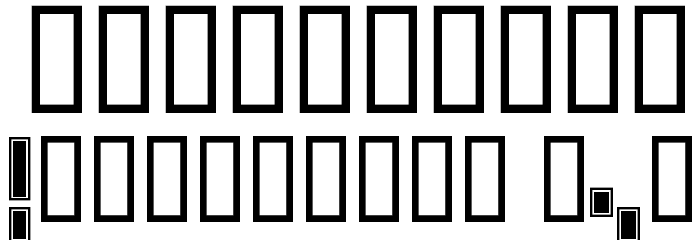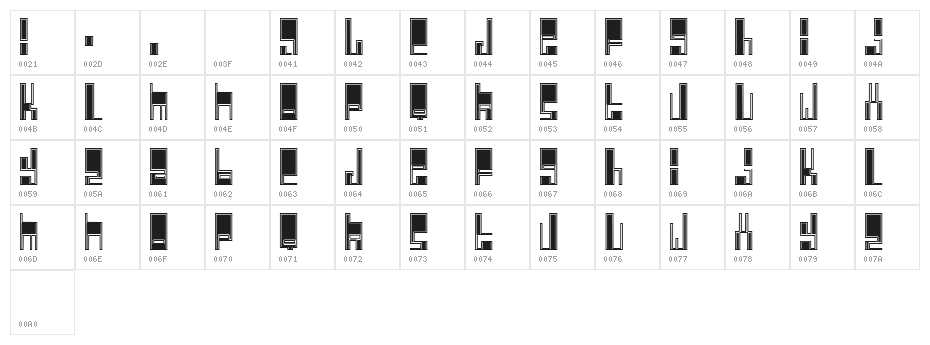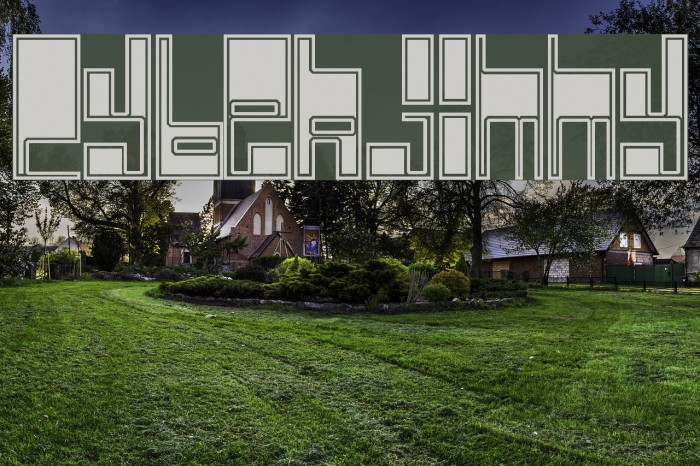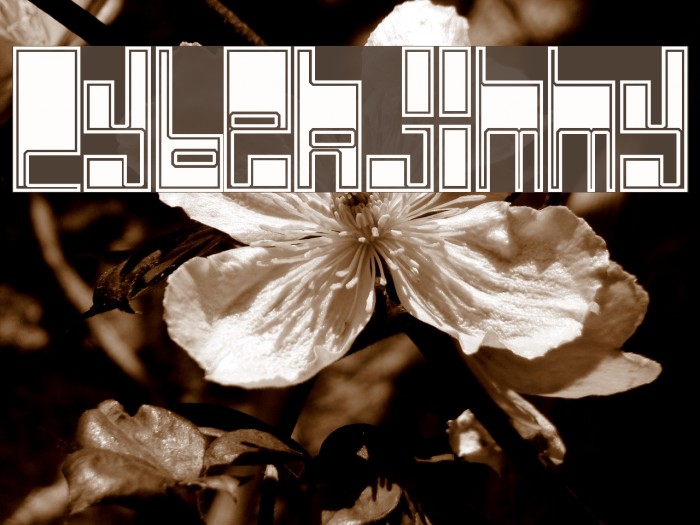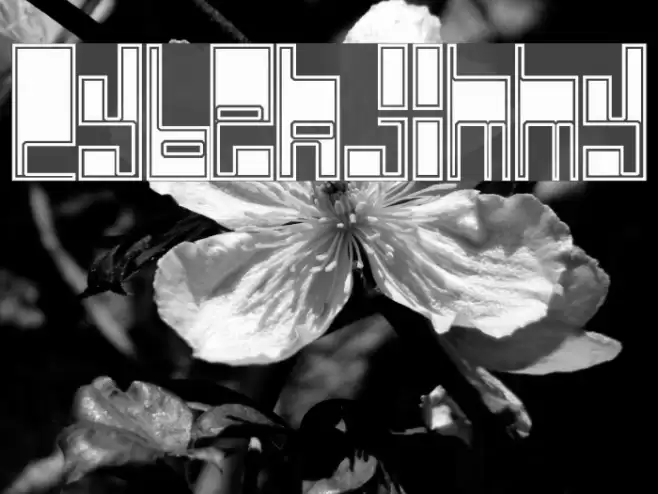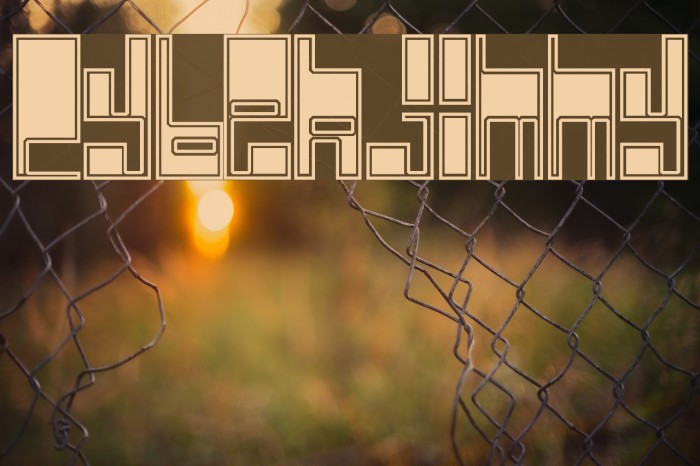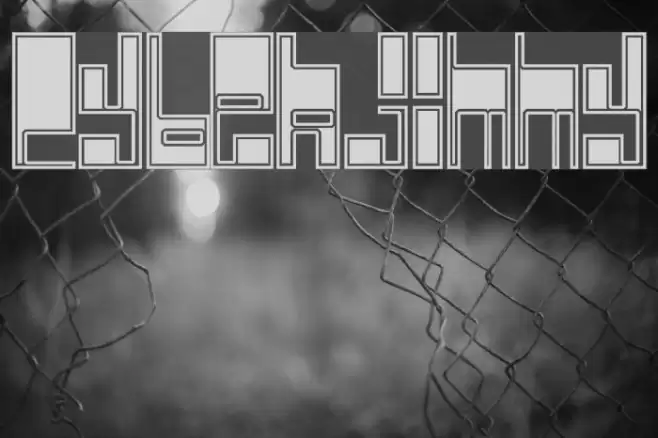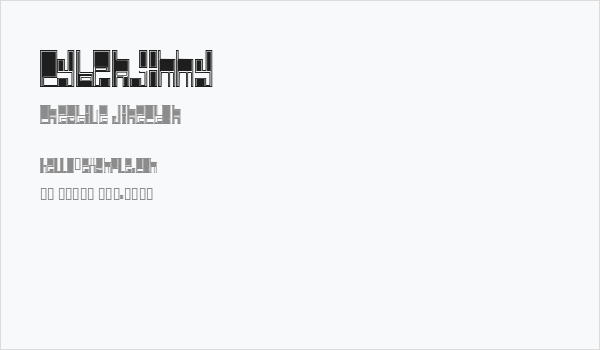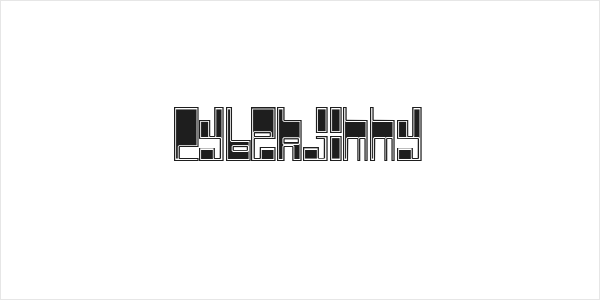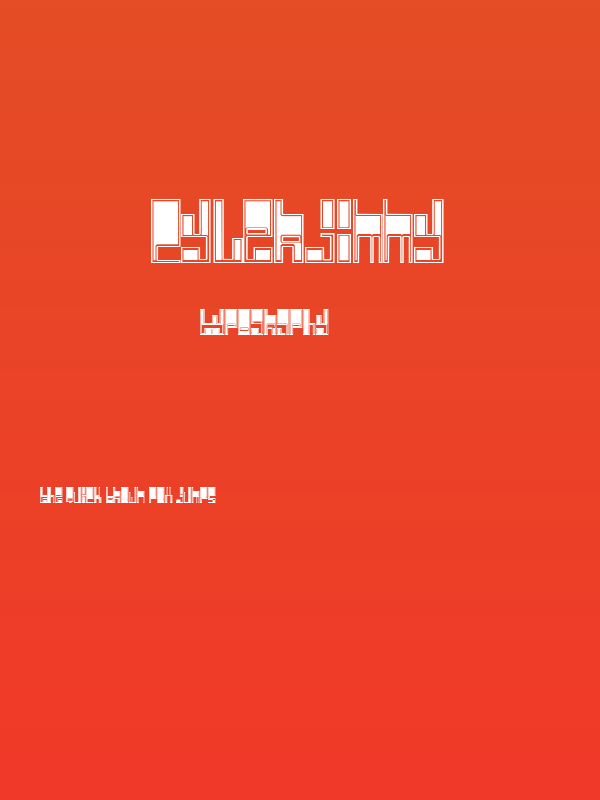
Cyberjimmy Font
Cyberjimmy Description
This font features a highly geometric and futuristic design, characterized by its bold, block-like structure. Each character is enclosed within a rectangular frame, creating a unique and striking appearance. The letters are formed with thick lines and sharp angles, giving them a mechanical and digital feel. The font maintains a consistent height across all characters, enhancing its uniformity and modern aesthetic. The numbers and special characters follow the same design principles, ensuring a cohesive look throughout. This font is ideal for projects that require a strong, contemporary, and tech-inspired visual impact.
| Proposed Projects | Ideal for tech-related branding, futuristic posters, digital art, and video game titles. |